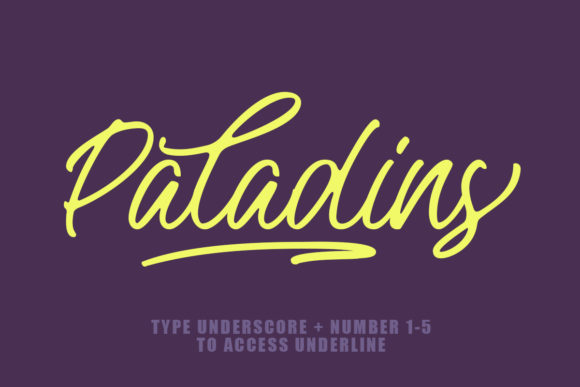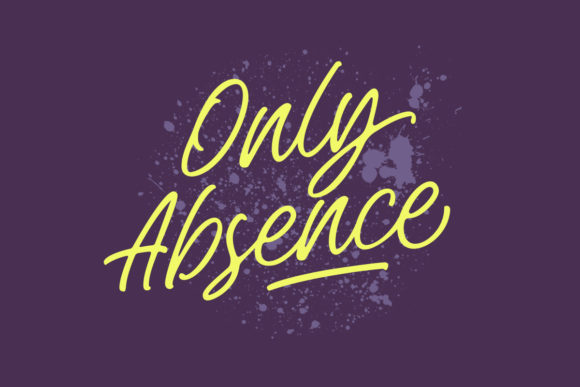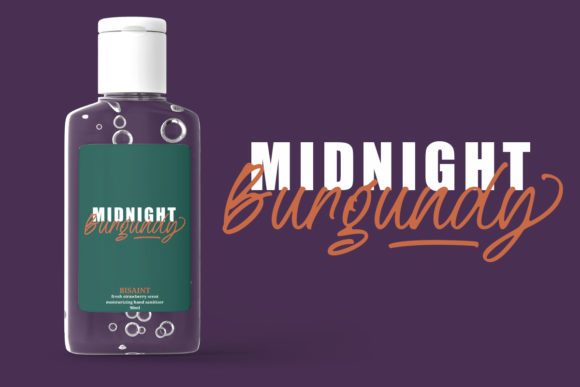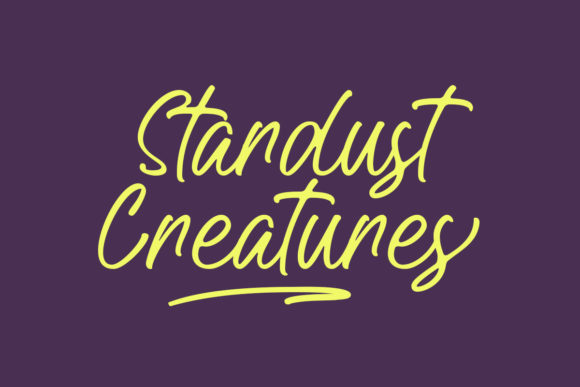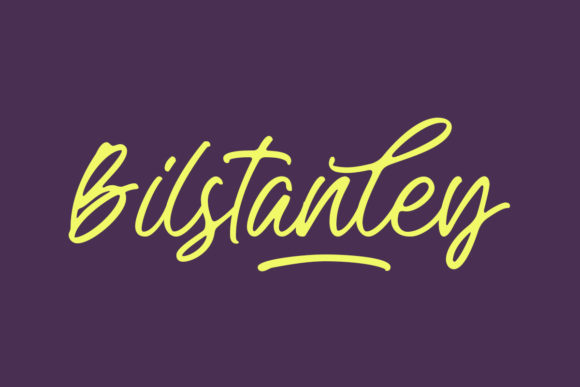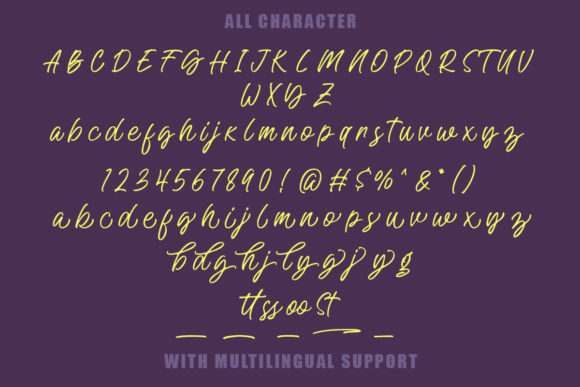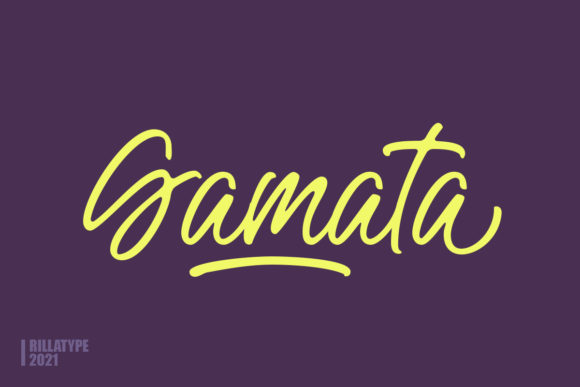
Gamata Font: The Fun and Friendly Handwritten Font for Outstanding Designs
Are you a designer or crafter looking for a unique and playful font to add a personal touch to your creations? Look no further than Gamata Font! This fun and friendly handwritten font is perfect for making original and outstanding designs that stand out from the crowd.
What Makes Gamata Font Special?
Gamata Font is a one-of-a-kind font that offers a fresh and modern take on traditional handwritten fonts. Its playful and whimsical style makes it ideal for a wide range of design projects, from creative crafts to digital marketing materials. Whether you’re designing a logo, creating a social media graphic, or crafting a handmade card, Gamata Font is sure to add a touch of personality and flair to your work.
One of the best features of Gamata Font is that it’s PUA (Private Use Area) encoded. This means that you can access all of the glyphs and swashes with ease, giving you even more creative freedom to customize your designs. With PUA encoding, you can easily insert special characters, ligatures, and other unique elements into your text, taking your designs to the next level.
Gamata Font is a versatile font that’s perfect for designers and crafters of all levels. Whether you’re a professional designer or a hobbyist crafter, this font is easy to use and adaptable to a wide range of projects. Here are just a few ways you can use Gamata Font:
• Create unique and eye-catching logos and branding materials
• Design beautiful and personalized stationery, such as invitations and greeting cards
• Add a touch of whimsy to your digital marketing materials, such as social media graphics and email newsletters
• Make your craft projects stand out with custom titles and headings
Tips for Using Gamata Font
To get the most out of Gamata Font, here are a few tips to keep in mind:
• Experiment with different font sizes and colors to add visual interest to your designs
• Use the glyphs and swashes to add unique touches to your text
• Combine Gamata Font with other fonts to create a unique and layered look
• Don’t be afraid to get creative and try new things – Gamata Font is all about having fun and expressing yourself!
In conclusion, Gamata Font is a fun and friendly handwritten font that’s perfect for designers and crafters looking to add a personal touch to their creations. With its PUA encoding and versatile design, this font is sure to become a go-to in your design arsenal. So why wait? Download Gamata Font today and start creating original and outstanding designs that showcase your unique style!
Key Features of Gamata Font
• Fun and friendly handwritten font
• PUA encoded for easy access to glyphs and swashes
• Perfect for designers and crafters of all levels
• Versatile design suitable for a wide range of projects
• Easy to use and customize
Whether you’re a seasoned designer or a crafty hobbyist, Gamata Font is the perfect choice for anyone looking to add a touch of personality and whimsy to their designs. So why not give it a try and see what amazing creations you can come up with?